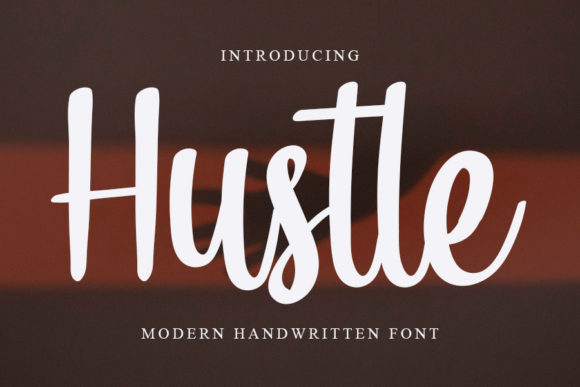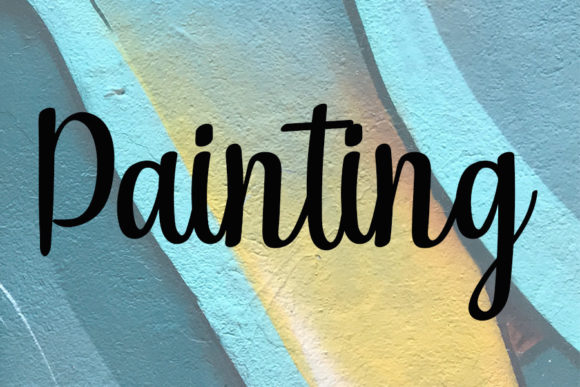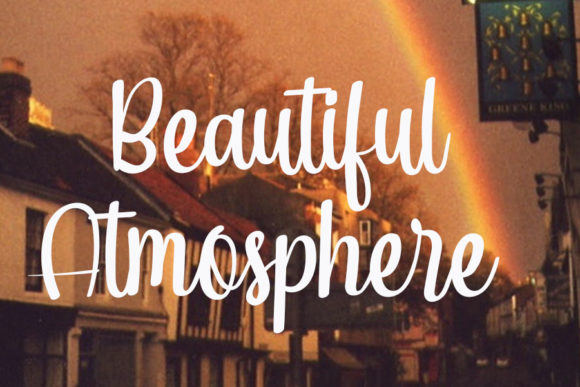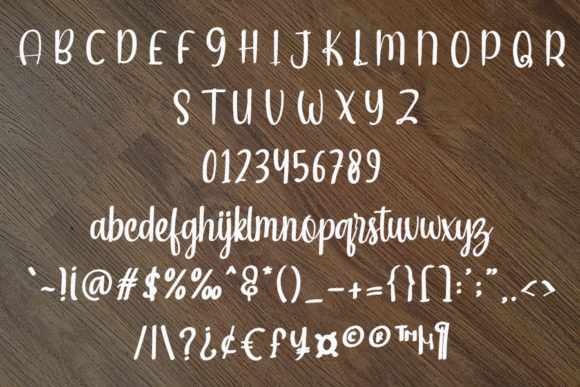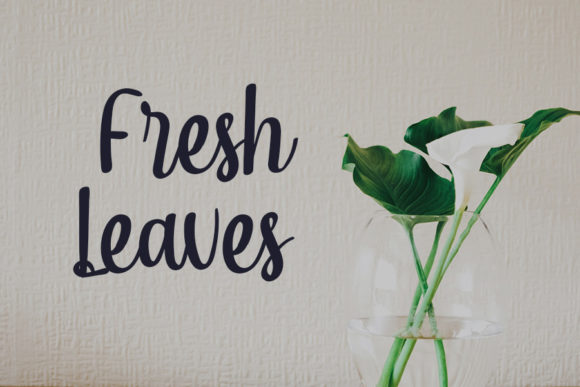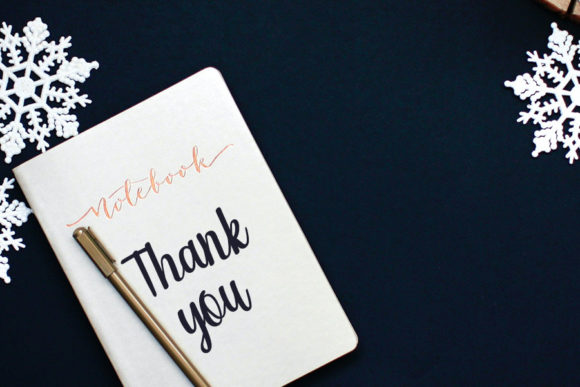
Hustle Font
About Hustle Font
Hustle is a friendly handwritten font, carefully designed to become a true favorite. It maintains its classy calligraphic influences while feeling contemporary and fresh.